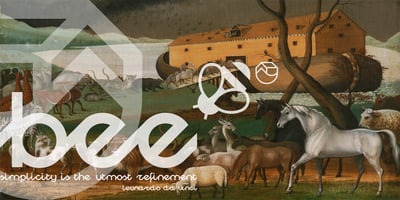
Noahs Ark Font Family was designed by Vincenzo Crisafulli and published by Vincenzo Crisafulli. Noahs Ark contains 1 styles and family package options. Noah’s Ark was designed to combine it with the bestiary animal series I designed. A simple font, well harmonized with the highly synthesized designs of animals and insects. So, it seemed natural to use them for posters.Noah’s Ark is a stylized font with a constant stroke, which stands between writing and the typeface. Its design is inspired by the fonts used in the 1940s. It is made up of linked letters, excluding numbers and other signs.